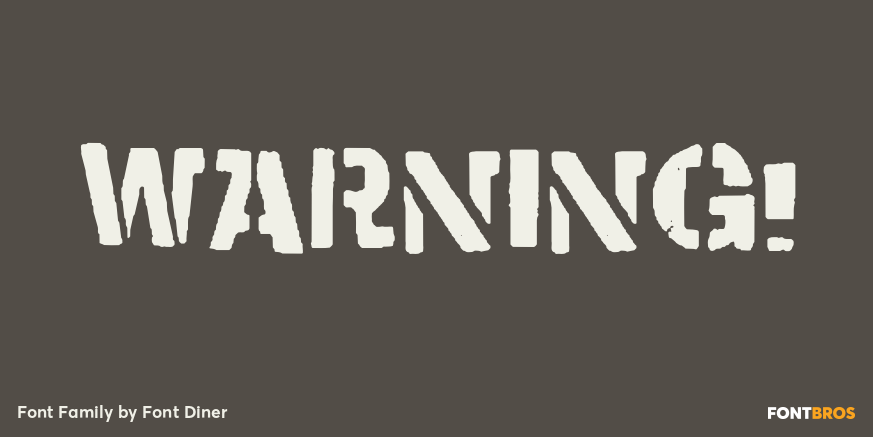
HomeFont BrosDistressedWARNING! DistressedSpecial EffectWacky WARNING! FacebookXPinterestWhatsApp 1 of 1 About WARNING! When its gotta be urgent, send a WARNING! This retro stencil font is just the ticket to ward off any would-be troublemakers up to any shenanigans  DOWNLOAD ON FONT BROSThis font is sold and delivered by Font Bros. Font Canyon may earn a commission if you buy through this link. People also explored Chalmette Font Signature Font Heliana Font Christmas Faithful Font Pasteris Zolleha Font Dorayaki Font Muezza Font Red Hair Sensual Duo Font 360 0 TagsWARNING! Font Previous articlePomeransNext articleMovatif LEAVE A REPLY Cancel reply Comment: Please enter your comment! Name:* Please enter your name here Email:* You have entered an incorrect email address! Please enter your email address here Website: Save my name, email, and website in this browser for the next time I comment. Personal Use Free Little Pigeon Personal Use Free Read more about this font Sehat Selalu Personal Use Free Read more about this font Amrina Personal Use Free Read more about this font Lixdu Personal Use Free Read more about this font BLOG How to Cut Any Font on Cricut: Convert a Font to SVG (Free) Turn any font into a clean SVG so it cuts crisp on Cricut - a quick 3-step workflow using a free font-to-SVG tool. Free Fonts Risk: Why Free Fonts Can Be Dangerous for Designers Free vs Paid Fonts: Why Investing in Premium Fonts Is Worth It Fonts That Capture the Spirit of New York City